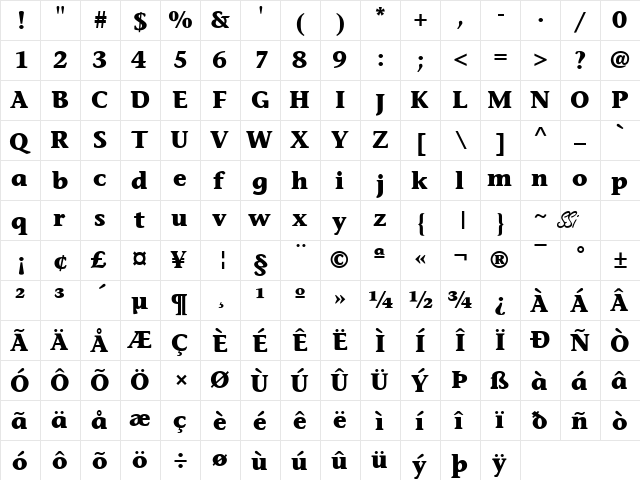
Mesouran Casual Black SSi Bold
Design Context for Mesouran Casual Black SSi Typeface
Mesouran Casual Black SSi is a composed and adaptable typeface that performs quietly and consistently across a wide range of design contexts. Its bold stroke weight gives it real presence on the page.